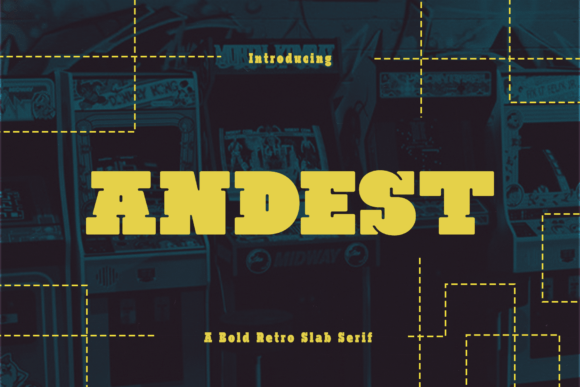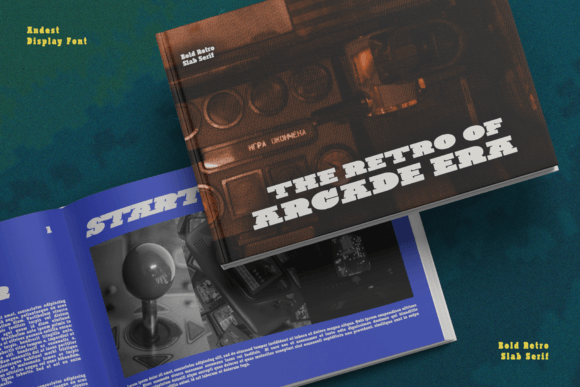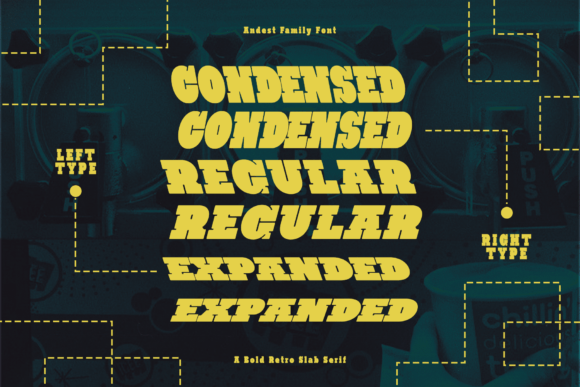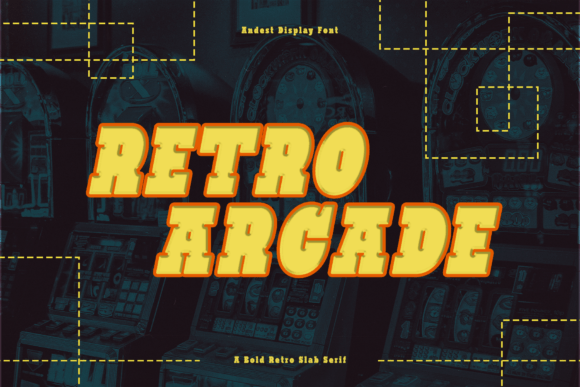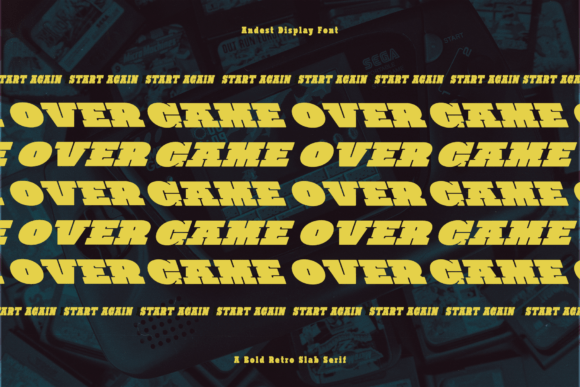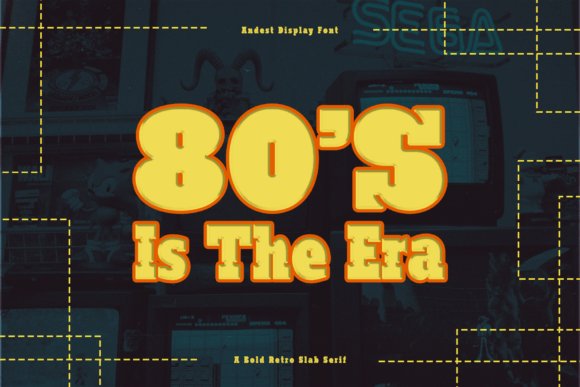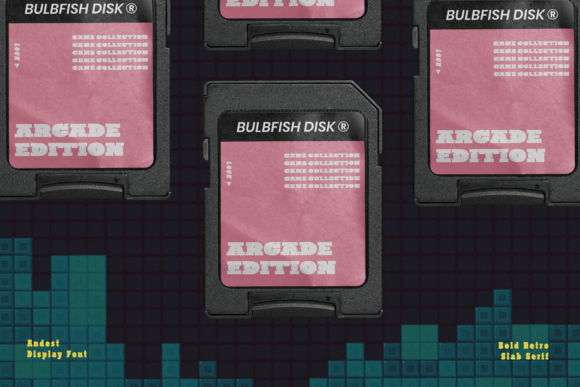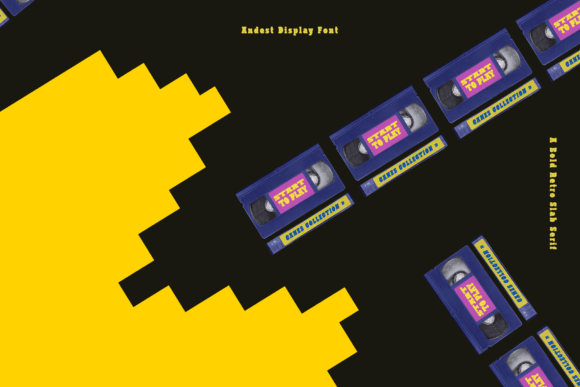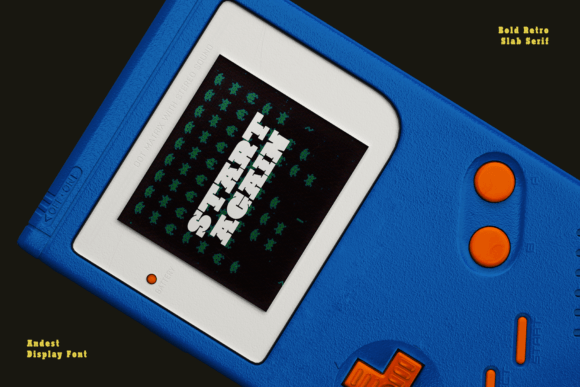
Andest Font
About Andest Font
Andest is a slab serif font that makes a statement with its thick, blocky letters and eye-catching ink traps. Its retro-inspired design evokes the bold typography of vintage arcade games and sports posters, while its innovative right and left italic styles add a unique twist. Andest is a versatile font that can be used for a wide variety of design projects. It’s perfect for headlines, logos, branding, packaging, posters, and any design that demands attention. Its retro aesthetic makes it a great choice for projects that want to evoke a sense of nostalgia or playfulness.